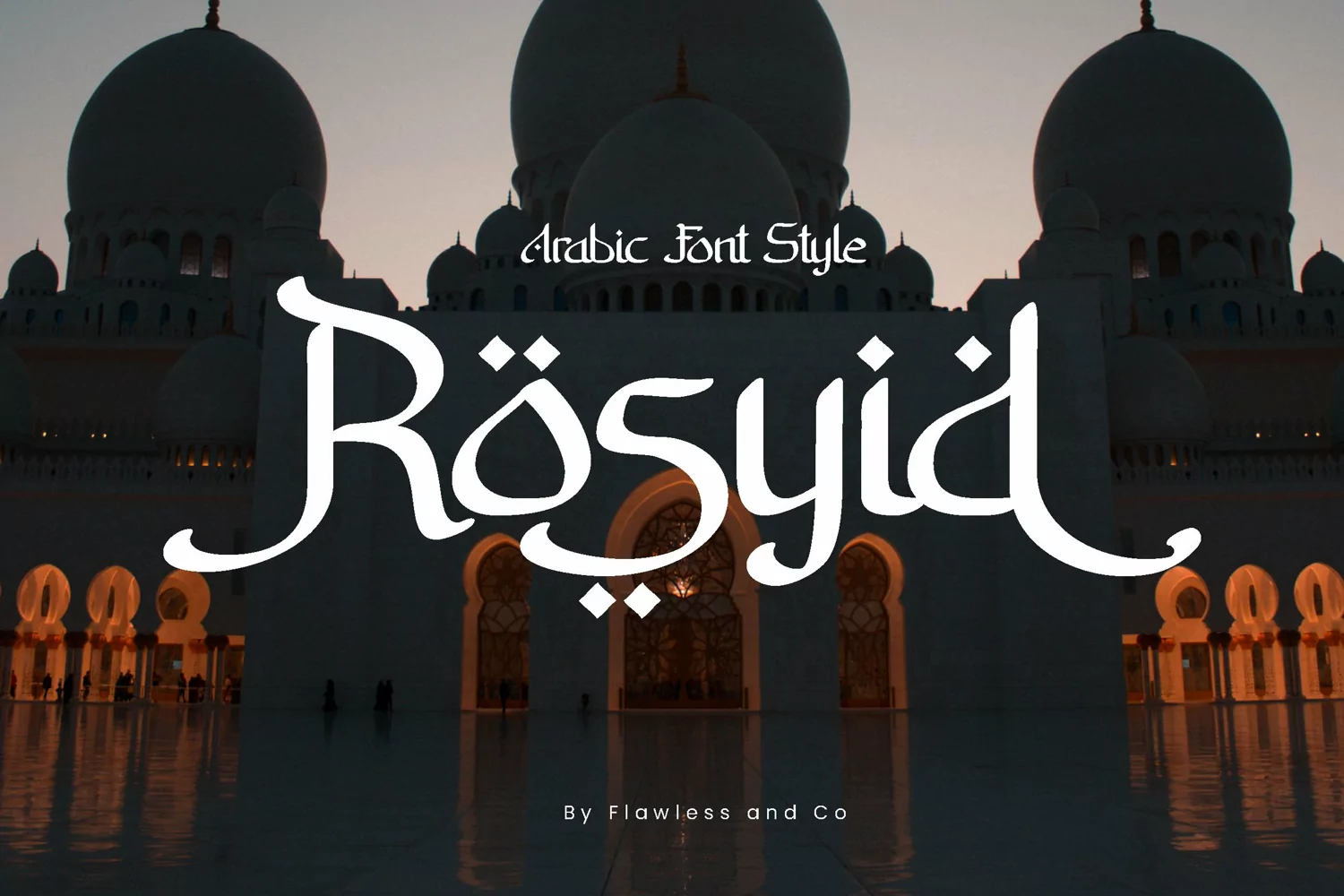
Rosyid
Rosyid is a beautifully crafted Ramadan Arabic font style that is perfect for your creative projects.
An Original typeface that suitable for any graphic designs such as branding materials, t-shirt, print, business cards, logo, poster, t-shirt, photography, quotes .etc
This font support for some multilingual. Modern Sweet Retro that contains uppercase A-Z and lowercase a-z, alternate character, numbers 0-9, and some punctuation.